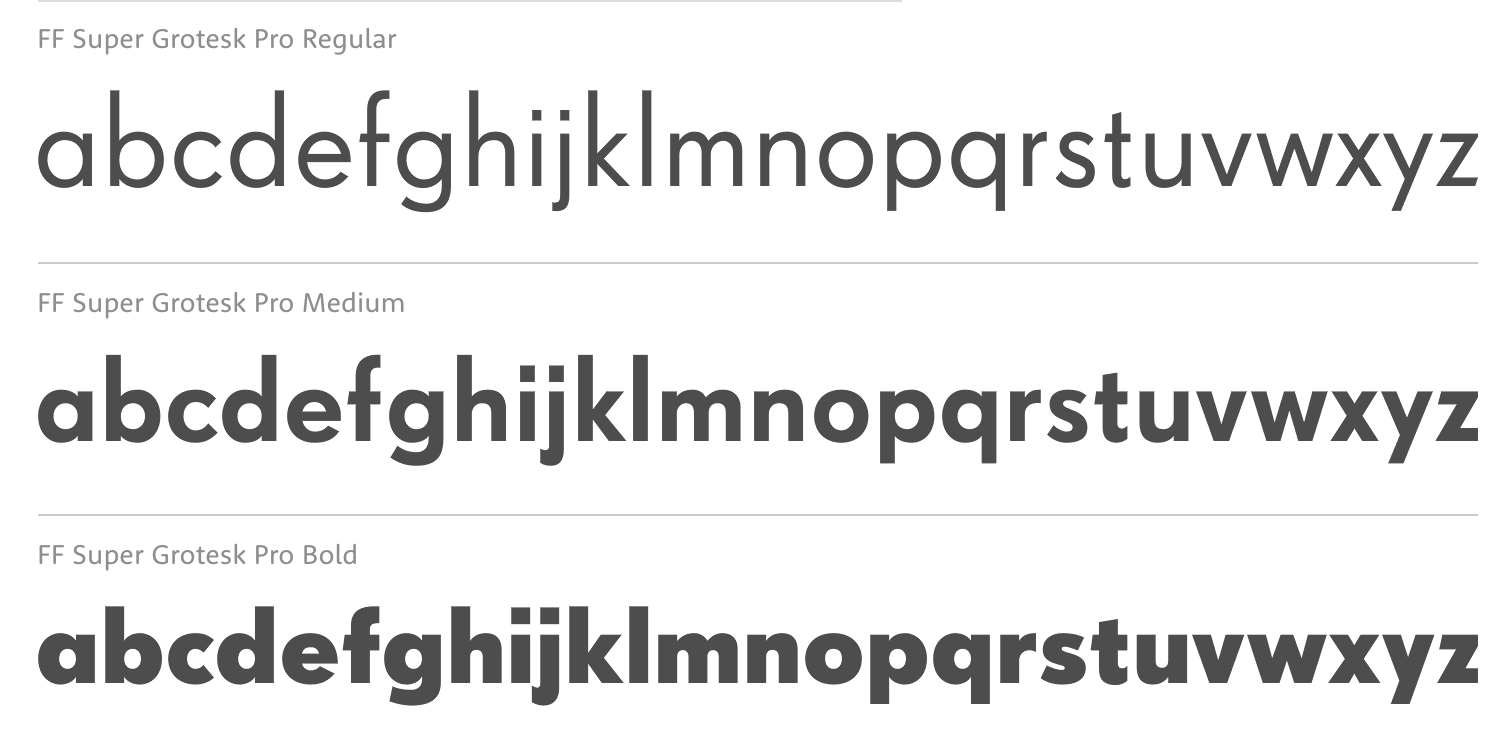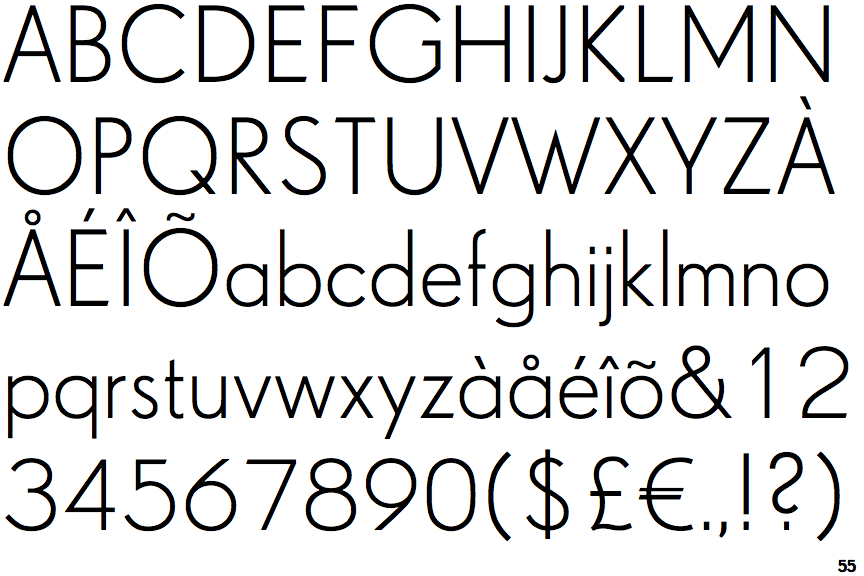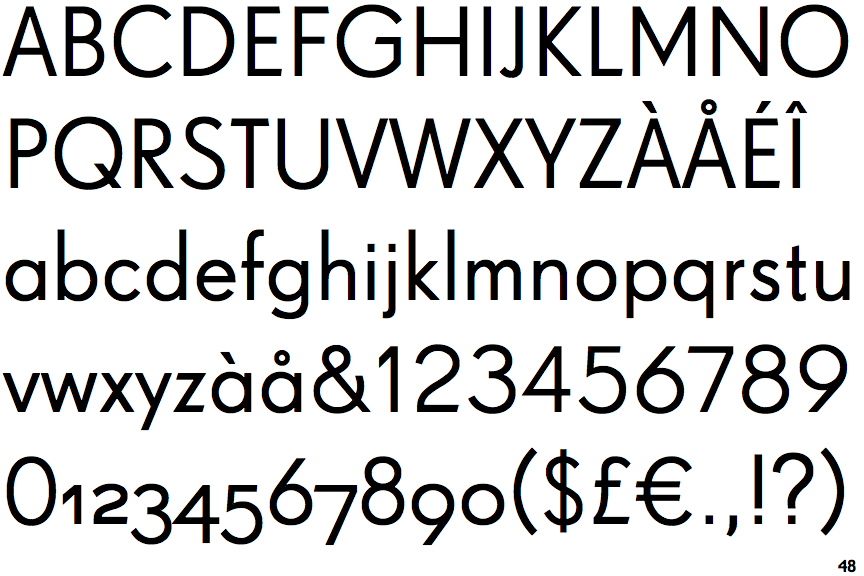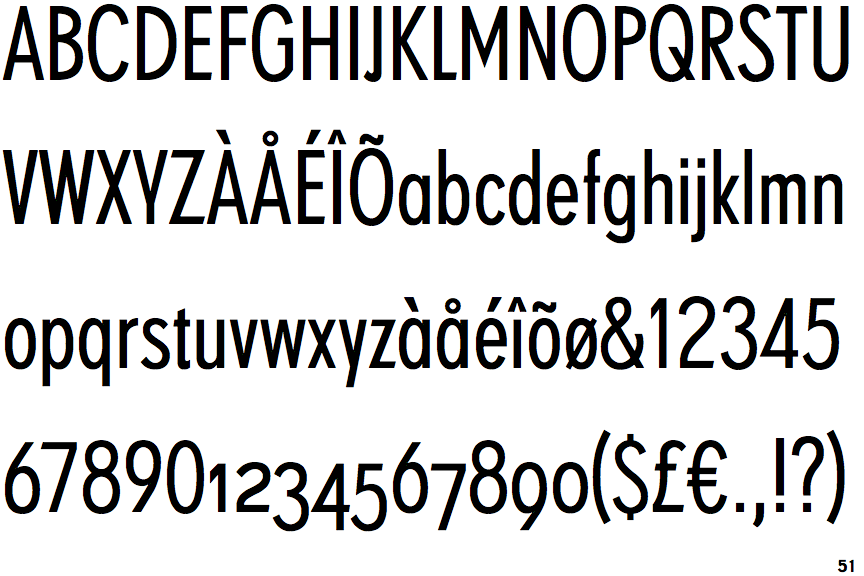
Incredible Super Grotesk Font Free 2023. Web what is the ff super grotesk® font? The family has 6 weights, ranging from regular to bold in.
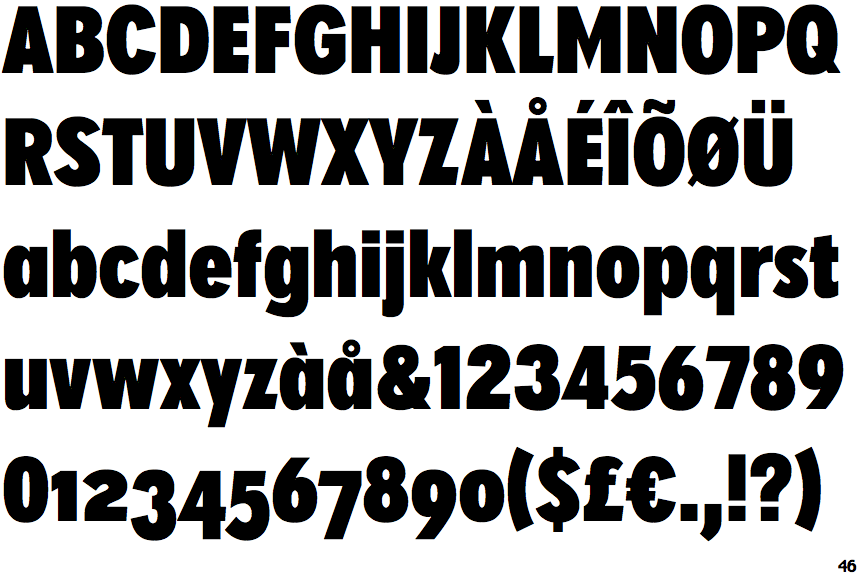
The Character Set Supports Western And Central European Languages, As Well As Turkish.
Web typo grotesk à € by studio typo. With over 500 glyphs, five styles and a wide range of weights its a timeless workhorse for many possible. Ff super grotesk font family was designed by svend smital and published by fontfont.